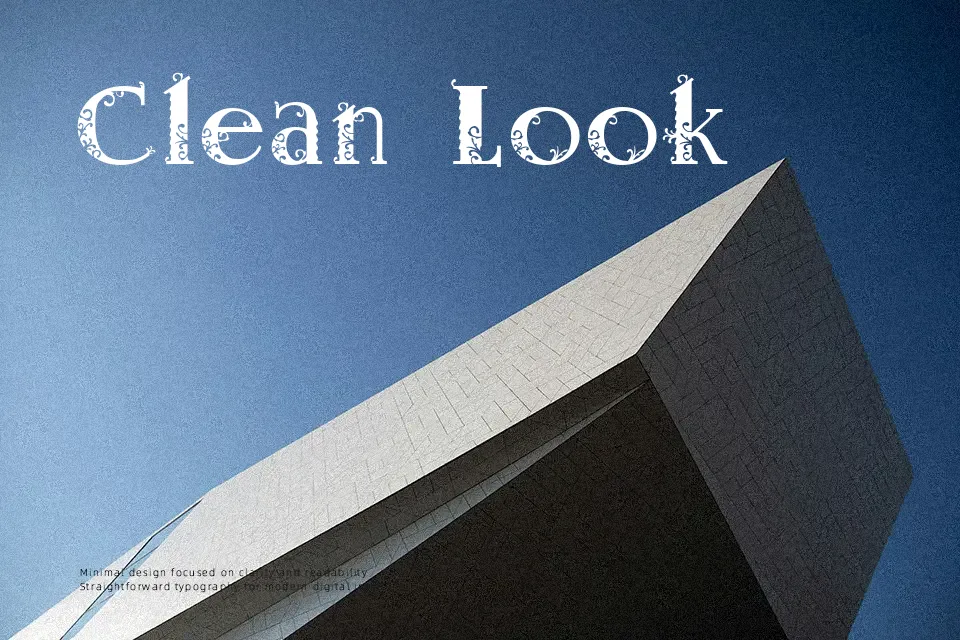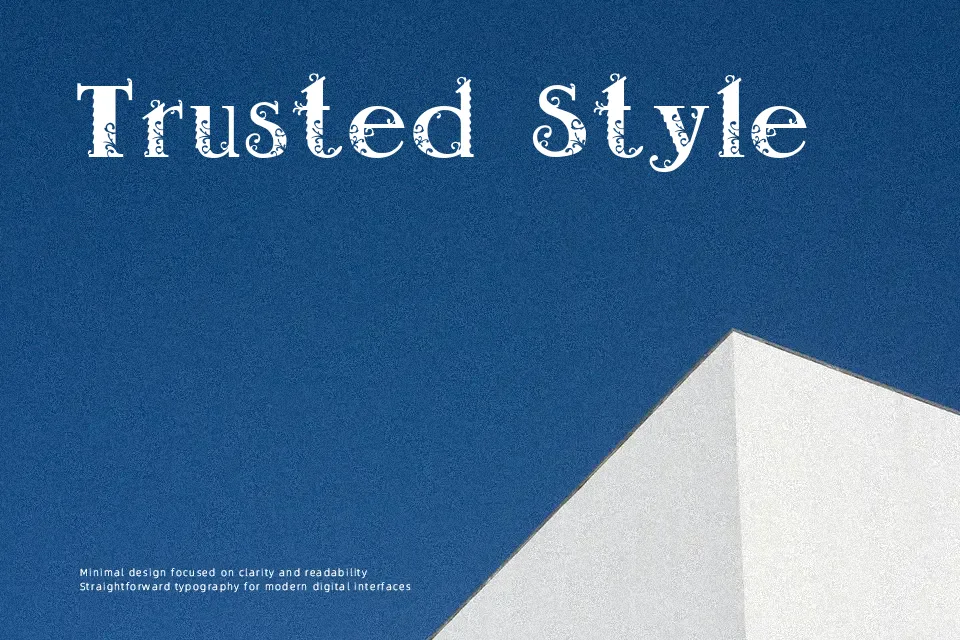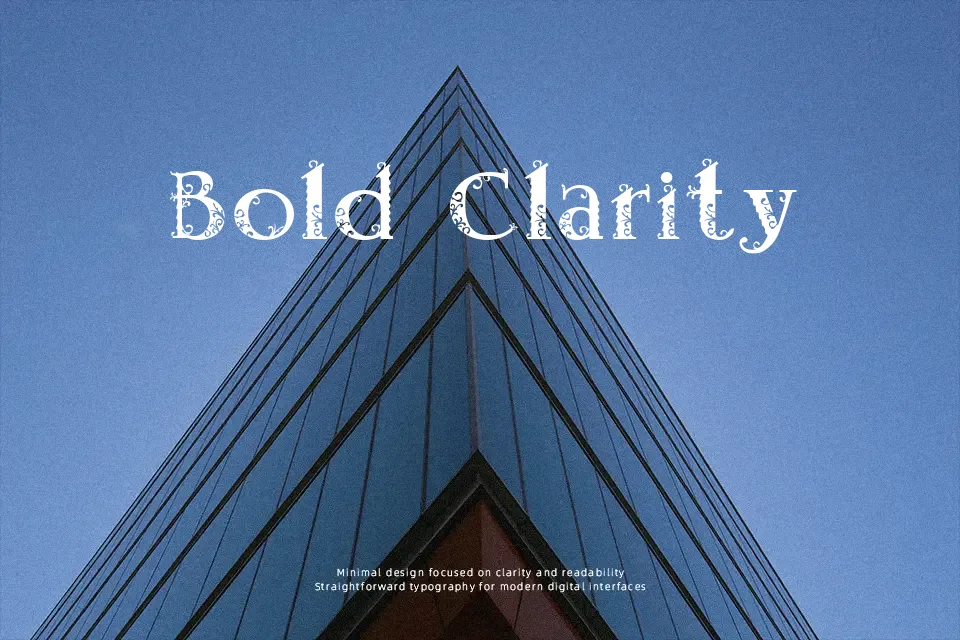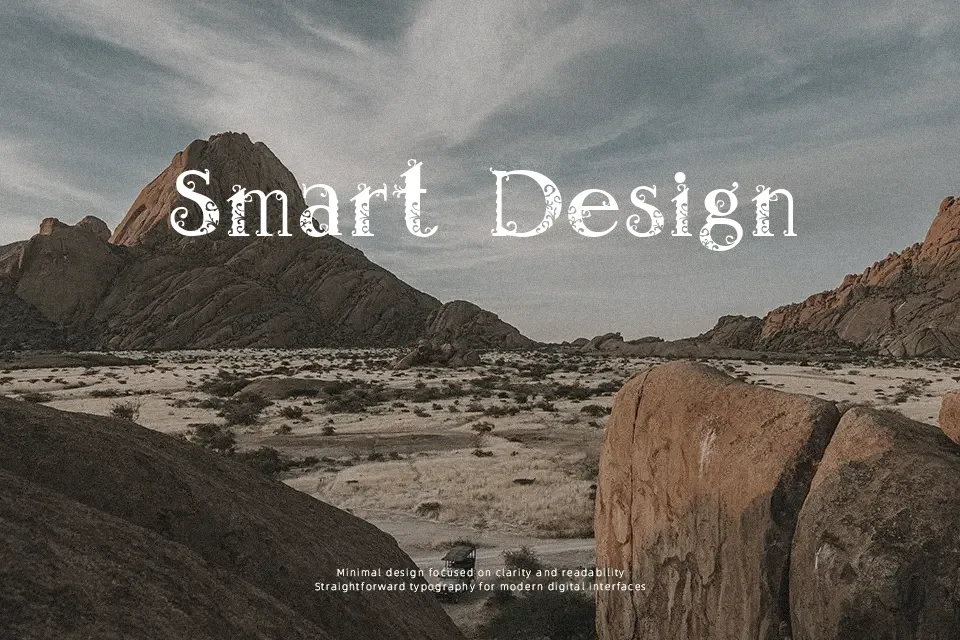
Vanessa Font
Designed by smf1974
Vanessa Font introduces a decorative display aesthetic characterized by fluid ornamental flourishes and carefully balanced letterforms. Its structure features medium stroke contrast, open spacing, and delicate decorative extensions that preserve consistent uppercase and lowercase proportions. The typeface performs best when displayed at larger sizes, lending distinctive elegance to invitation stationery, boutique packaging, and prominent banner headings. However, the intricate embellishments reduce visual clarity at small sizes and make continuous reading uncomfortable in dense editorial layouts.
Best For: boutique product packaging, wedding invitation titles, holiday event posters, fashion lookbook headlines
Not Ideal For: long paragraph text, mobile user interface labels, technical documentation, dense spreadsheet data
Perfect for branding, headline, and invitation, with a artistic and decorative style.